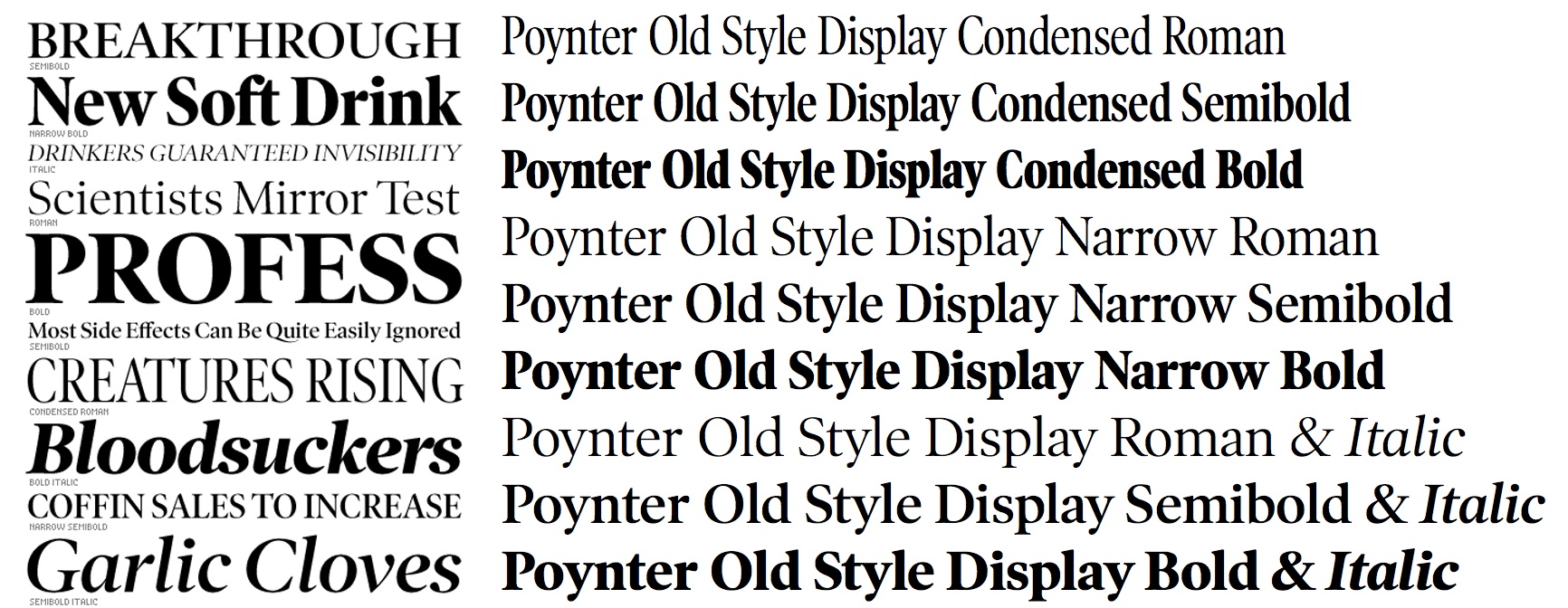
Poynter Oldstyle Font
Poynter Oldstyle Font is perfect for newspaper editorial layouts, academic journal publishing, literary magazine designs, historical book typography, scholarly article formatting, traditional newsletter designs, institutional documentation, and professional report presentations. This distinguished typeface excels in applications where exceptional readability and classical typography traditions are essential for creating authoritative and accessible print communications.
What makes Poynter Oldstyle Font truly exciting is its masterful optimization for extended reading and journalistic applications. The font features carefully crafted letterforms with enhanced legibility characteristics specifically designed for newspaper and editorial use. Its moderate contrast and robust serifs ensure excellent performance at small sizes and on various paper qualities, while the generous x-height and open counters maximize readability under challenging printing conditions. The typeface's traditional proportions and classical character demonstrate deep respect for typographic heritage while incorporating modern refinements for contemporary publishing needs.
The Poynter Oldstyle Font family includes multiple weights from Light to Bold, complemented by matching italic versions and small capitals. The font offers comprehensive OpenType features including old-style figures, ligatures, alternate characters, and extensive multilingual support. Additional display weights and condensed versions provide editors and designers with complete typographic systems for complex publication hierarchies and diverse layout requirements.